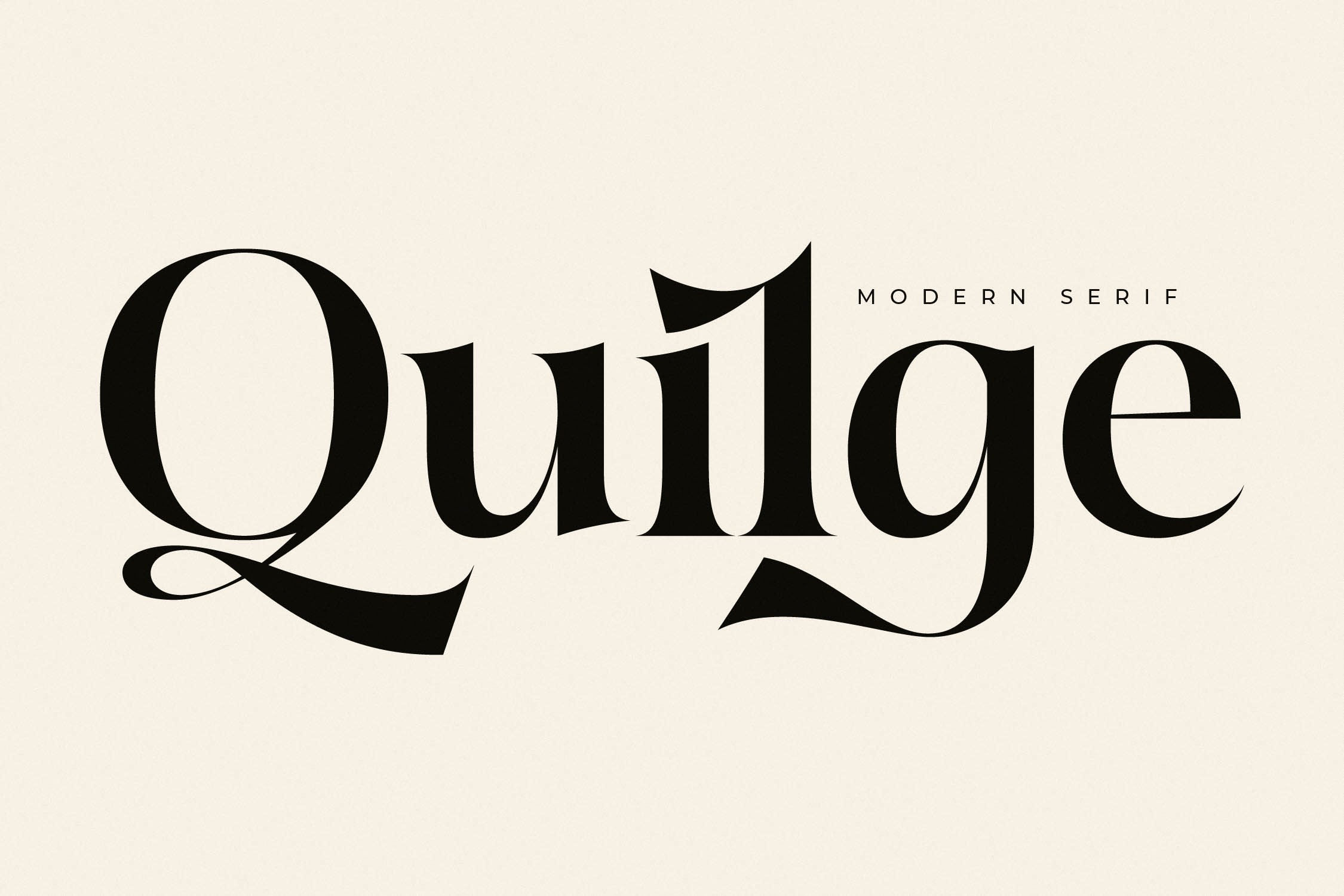
Quilge Font
Quilge Font is a distinctive and expressive font crafted to bring personality, structure, and creative energy into your projects. Quilge – Modern Serif , from Letterena, is a Luxury Serif font, suitable for any projects such as: logos, branding projects, homeware designs, product packaging, mugs, quotes, posters, shopping bags, t-shirts, book covers, name card, invitation cards, greeting cards, label, photography, watermark, special events, and all your other luxury and beautiful projects that need a Luxury Serif taste.